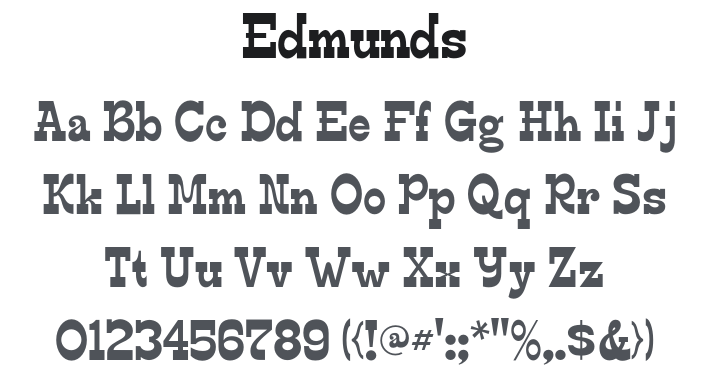
Edmunds Font Family
About Edmunds
Edmunds is a bold, chunky western slab-serif with exaggerated curves and clunky proportions that radiate playful cowboy charm — think saloon signs and old fairground posters. Available in Regular and Distressed variants, it suits rodeo posters, BBQ menus, whiskey labels, country music artwork, and any Americana design that calls for a cheerful, frontier spirit.